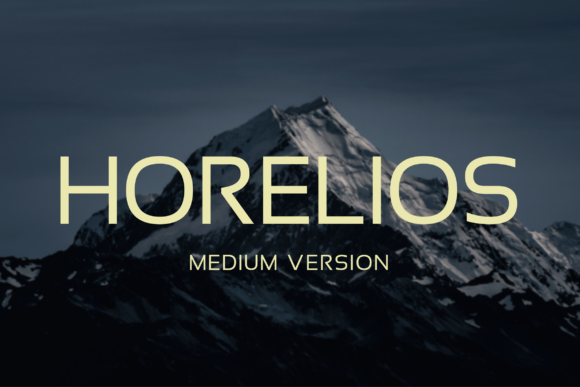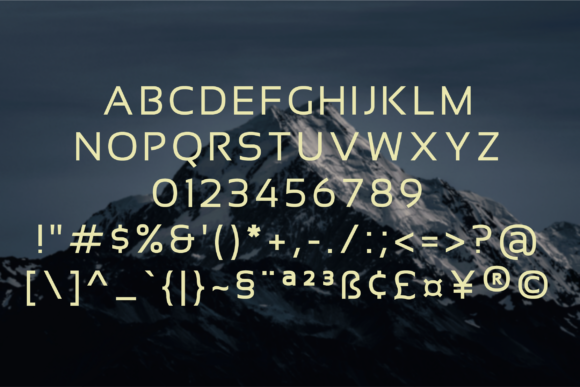
HomeSans Serif FontsHorelios Medium Font Sans Serif Fonts Horelios Medium Font FacebookTwitterPinterestWhatsApp Horelios Medium Font 1 of 2 About Horelios Medium Font Horelios is a minimalistic, timeless, and stunning all caps sans serif font that looks beautiful in layouts, headers, web, and many other contexts! DOWNLOAD NOW People also explored Sweater Font Millia Font Espander Font Planet Earth Font Autumn Flower Feather Font Blue Font Kalina Font Cashew Apple Ale Bold Font 279 0 TagsHorelios Medium Font Previous articleHorelios FontNext articleHorelios Extra Black Font LEAVE A REPLY Cancel reply Comment: Please enter your comment! Name:* Please enter your name here Email:* You have entered an incorrect email address! Please enter your email address here Website: Save my name, email, and website in this browser for the next time I comment. Personal Use Free The Kingdom Personal Use Free Read more about this font Uchiyama Personal Use Free Read more about this font Loving You Personal Use Free Read more about this font Arc Personal Use Free Read more about this font BLOG Transform Your Website: Elevate Your Typography with 7 Best Web Font Generators Are you ready to transform your website's typography from ordinary to extraordinary? Great! Today, we're diving into the world of web font generators, which... Top 7 Google Fonts Alternatives for Faster and Privacy-Friendly Web Design (2025) Best Fonts for YouTube Videos: Make Your Thumbnails Stand Out Using Fonts in Digital Marketing: Tips to Strengthen Your Brand Identity